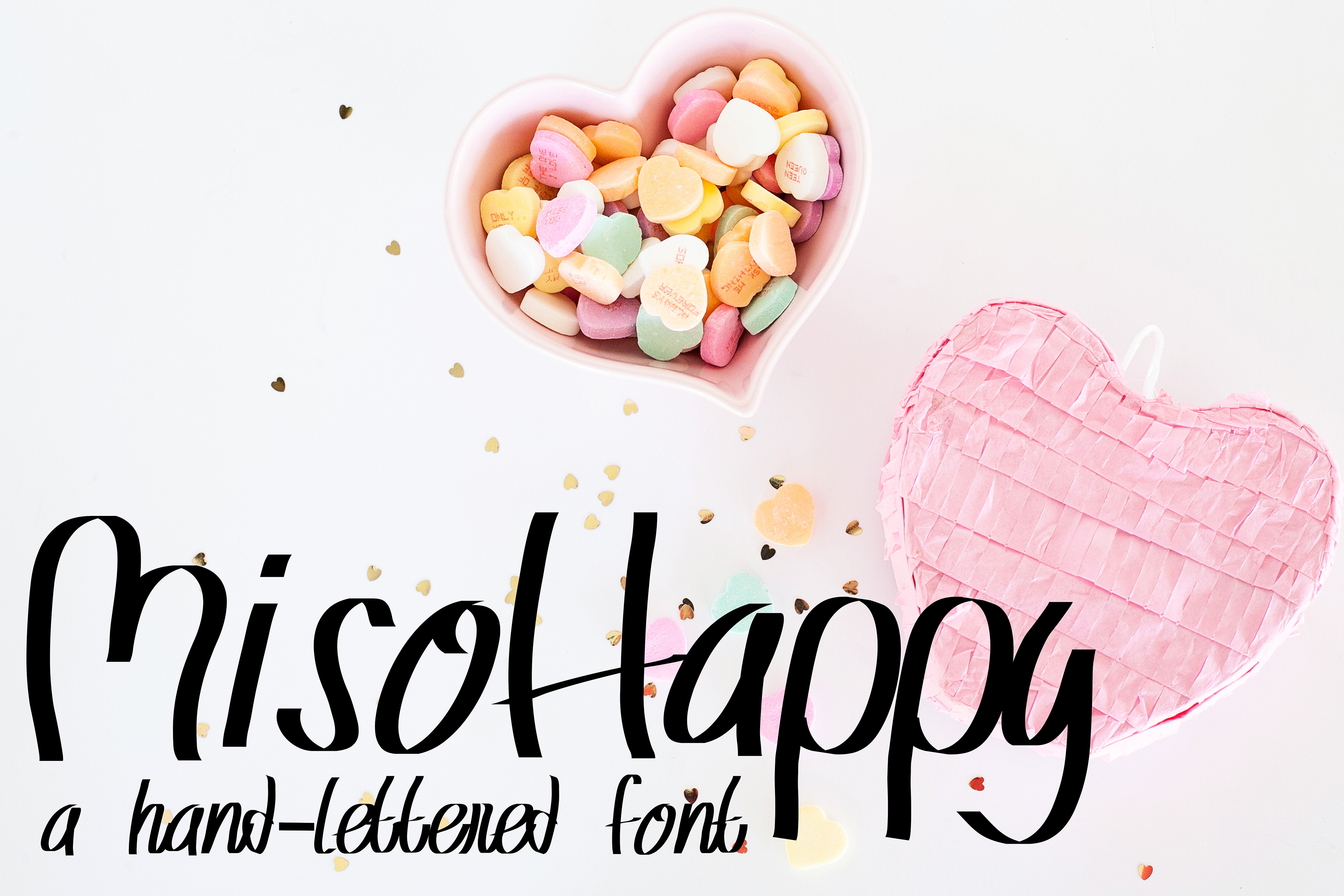
MISO HAPPY Hand Lettered Font
MisoHappy is a fun hand-lettered font that's simple enough with a little bit of spice. Available in a TTF file with a full alphabet, numbers, and symbols.